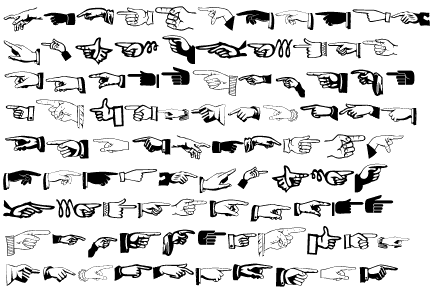
Phyngern is a collection of pointing fingers taken from a variety of sources. Some come from the 19th century, when there were a great many used. Some are based on fingers I found in reproductions of medieval manuscripts. One set even comes from the Sistine Chapel. A few are original creations. If you need a interesting pointing finger, try this typeface.